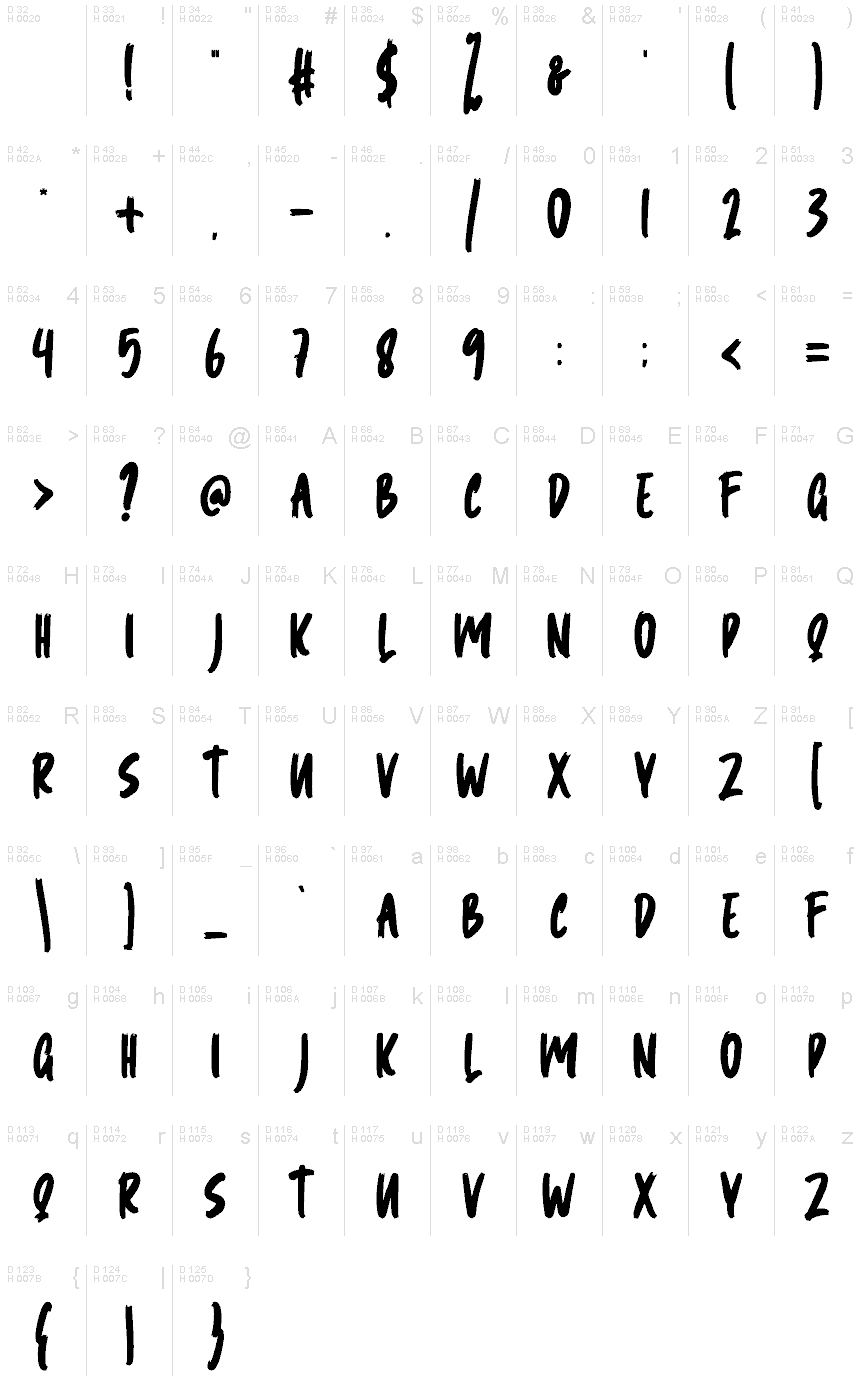
Lorenzo
Lorenzo font is a bold, condensed brush typeface by Skiiller Studio. Energetic and expressive, this font carries a modern flair with its textured, artistic vibe. Its dynamic style and appeal allow it to captivate audiences in diverse environments, enhancing creativity in visual media.